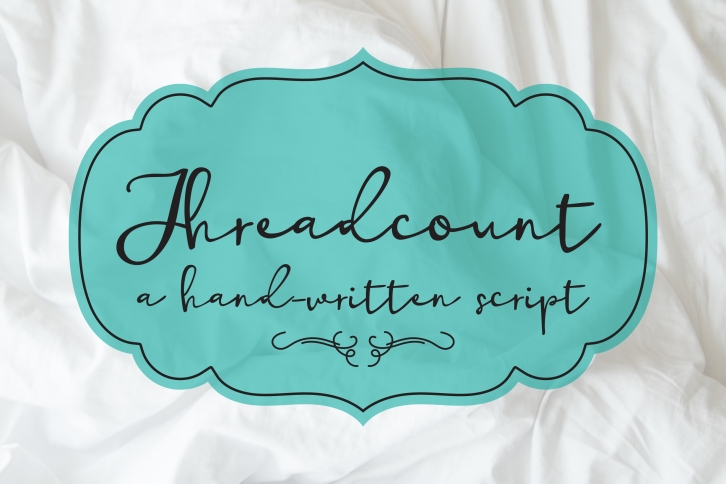
PN Threadcount is a gorgeous font that was realeased on October 23, 2018. The font can be used in many style contexts and design environments. Perfect for invitations, magazines, websites, logos, and more! It was designed by Illustration Ink and the file size is 16.17 MB. Thanks for checking out this font!